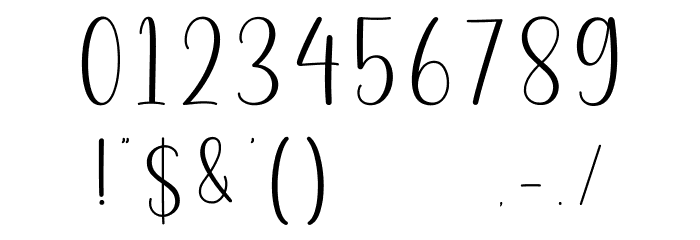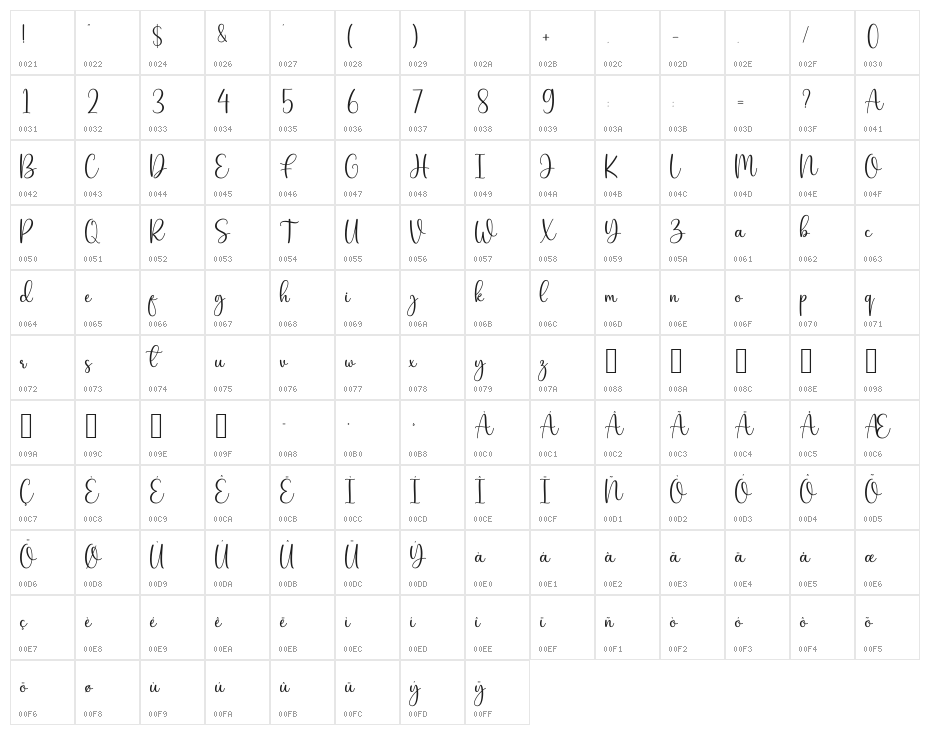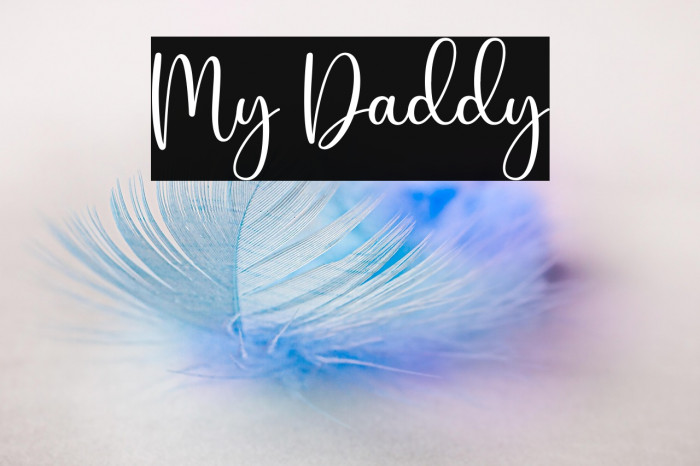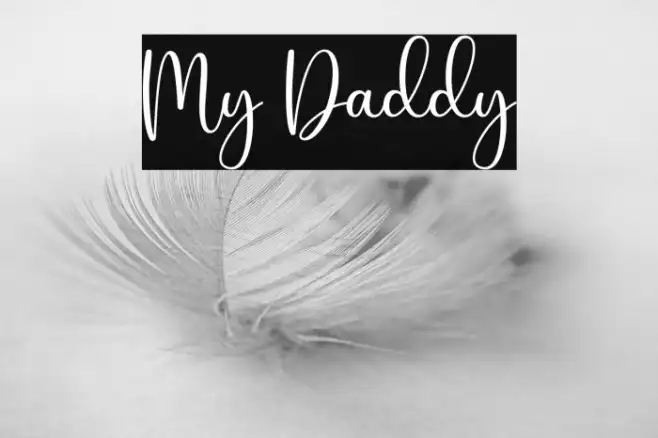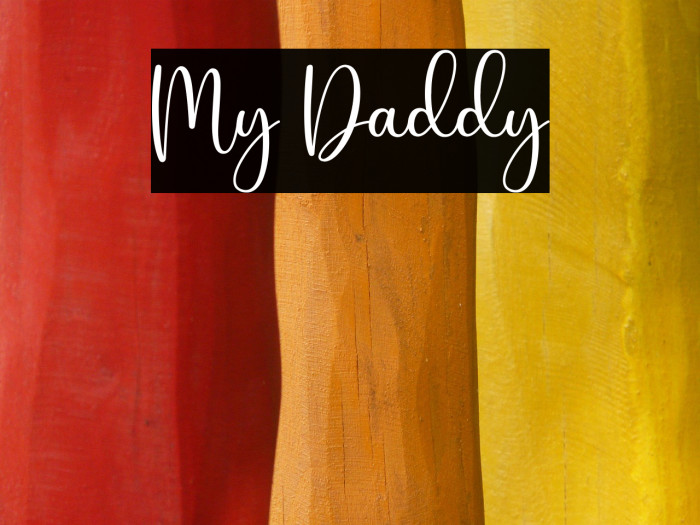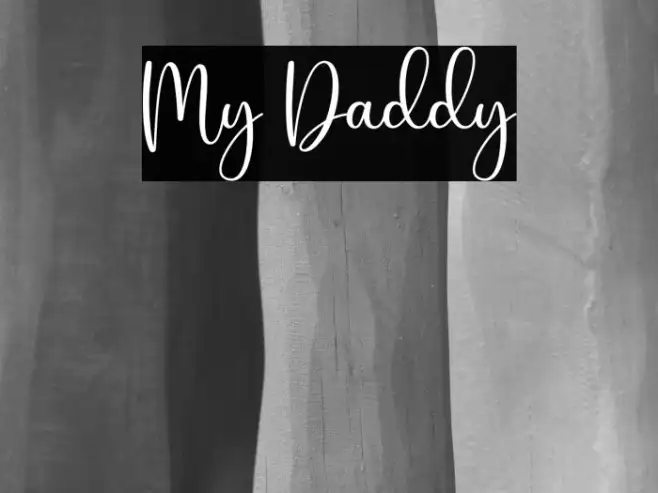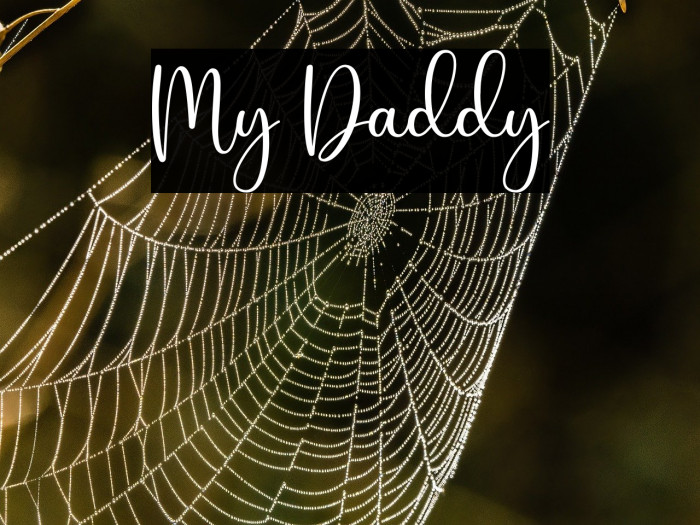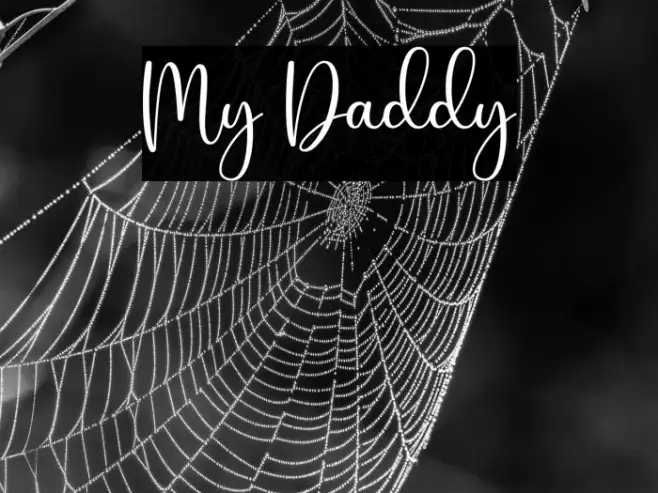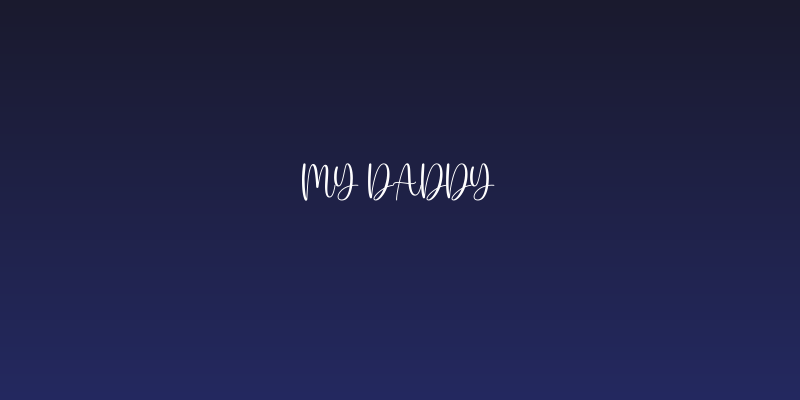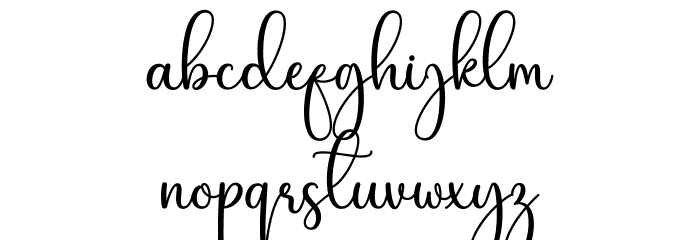
My Daddy Font
My Daddy Description
This font features a playful and elegant script style, characterized by its flowing, cursive letters that mimic the fluidity of handwriting. The uppercase letters are bold and expressive, with unique loops and swirls that add a touch of whimsy. The lowercase letters maintain a consistent style, with smooth curves and a slightly condensed form. The numerals are clear and legible, maintaining the font's overall aesthetic. Special characters are thoughtfully designed to match the script's playful nature. This font is perfect for projects that require a personal, handwritten touch, such as invitations, greeting cards, or branding materials.